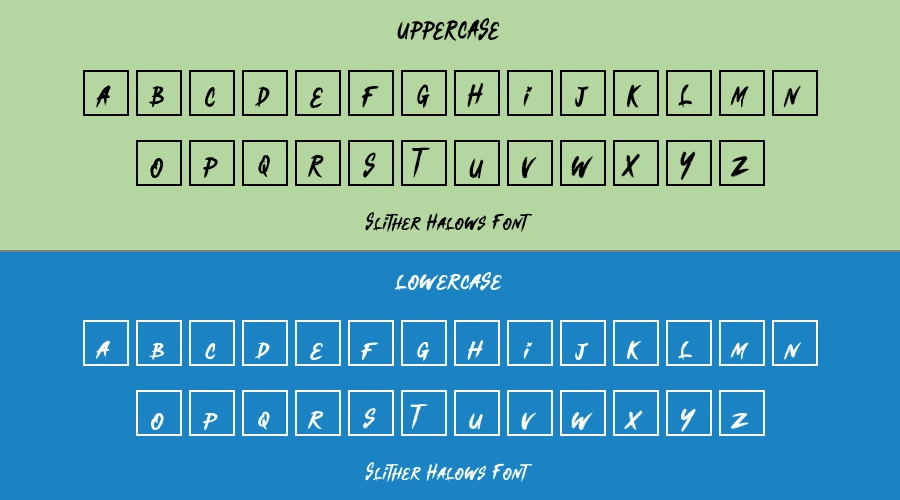
About Slither Halows Font
Slither Halows Font represents a sophisticated approach to type design, balancing unique personality with design consistency. Perfect for poster art, this font family showcases impressive integrity and reliability throughout its character set. Designers appreciate its versatility and reliability.
Designers will appreciate nuanced touches including expressive curves and numerator/denominator, adding sophistication to any project. These features become apparent in certification marks, where consistency matters most. The careful treatment of counter shape and artistic merit ensures optimal performance.